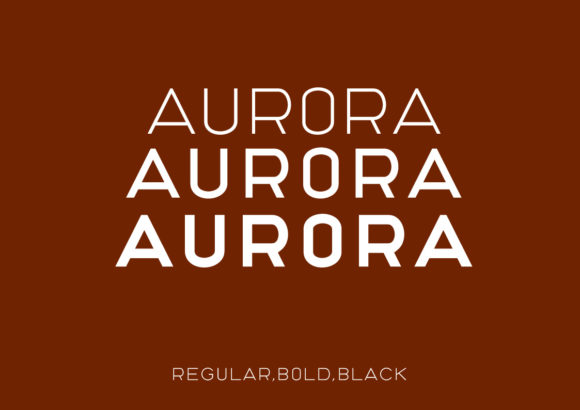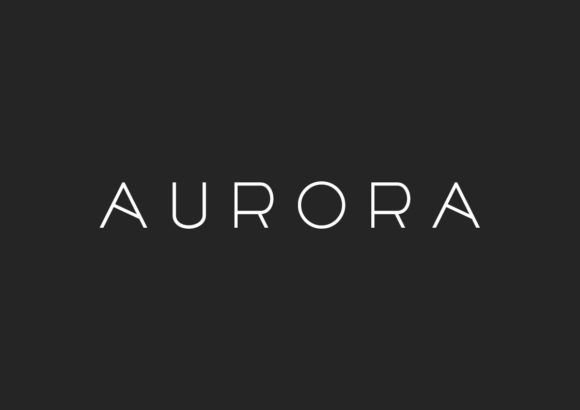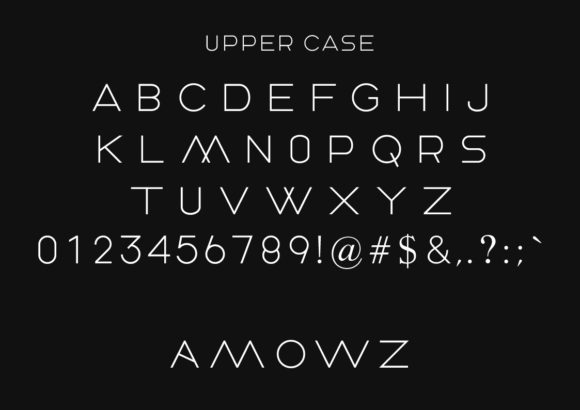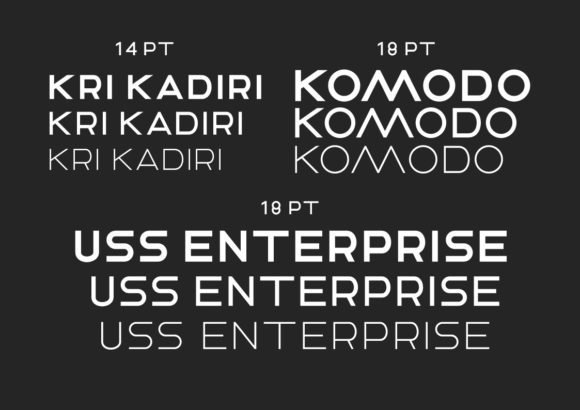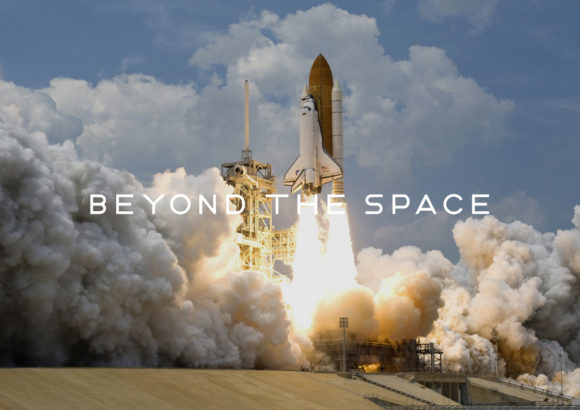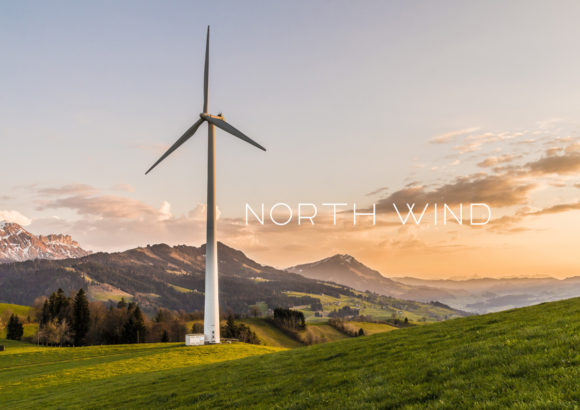
Aurora Font: Elevate Your Designs with a Smooth Sans Serif Style
In the world of typography, fonts play a crucial role in conveying the message and aesthetic of a design. For designers and crafters, finding the perfect font can be a daunting task. However, if you’re looking for a smooth sans serif font that can complement any design need, look no further than Aurora Font. In this article, we’ll explore the features and benefits of Aurora Font, and why it’s a must-have for any designer or crafter.
What is Aurora Font?
Aurora Font is a modern sans serif font that consists of two styles: regular and black. This font is designed to provide a perfectly balanced mix of smooth and sharp lines, making it versatile and adaptable to various design needs. Whether you’re working on a branding project, a website, or a craft project, Aurora Font is the perfect choice.
Key Features of Aurora Font
- Smooth Sans Serif Style: Aurora Font boasts a smooth sans serif style that is both elegant and modern.
- Two Styles: The font comes in two styles: regular and black, allowing you to choose the perfect weight for your design.
- Perfectly Balanced: The font’s design is perfectly balanced, providing a mix of smooth and sharp lines that will elevate your designs.
- Versatile: Aurora Font is versatile and can be used for a wide range of design projects, from branding and websites to crafts and more.
Benefits of Using Aurora Font
Aurora Font offers several benefits to designers and crafters. Here are a few:
- Elegant and Modern: The font’s smooth sans serif style gives it an elegant and modern look that’s perfect for designs that require a touch of sophistication.
- Easy to Read: The font is designed to be easy to read, making it perfect for body text and other applications where readability is crucial.
- Customizable: With two styles to choose from, you can customize your design to fit your needs.
- Time-Saving: With Aurora Font, you can save time and effort in finding the perfect font for your design project.
Use Cases for Aurora Font
Aurora Font is a versatile font that can be used for a wide range of design projects. Here are a few examples:
- Branding: Use Aurora Font to create a professional and modern brand identity.
- Websites: The font is perfect for websites that require a clean and elegant look.
- Crafts: Aurora Font is a great choice for craft projects, such as card making, scrapbooking, and more.
- Marketing Materials: Use the font to create professional-looking marketing materials, such as brochures, flyers, and more.
Tips for Using Aurora Font
Here are a few tips for using Aurora Font:
- Pair it with Other Fonts: Experiment with pairing Aurora Font with other fonts to create a unique look.
- Use it for Headings and Body Text: Use the regular style for body text and the black style for headings to create visual hierarchy.
- Adjust the Size and Color: Adjust the size and color of the font to fit your design needs.
In conclusion, Aurora Font is a smooth sans serif font that is perfect for designers and crafters looking for a versatile and elegant font. With its perfectly balanced mix of smooth and sharp lines, it’s ideal for a wide range of design projects. Whether you’re working on a branding project, a website, or a craft project, Aurora Font is a great choice. So why wait? Download Aurora Font today and elevate your designs to the next level!